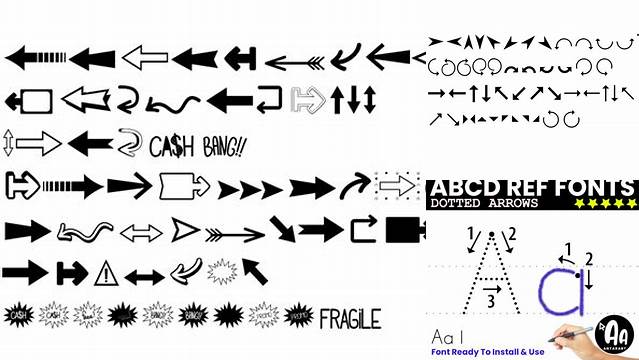
Free Tracing Font With Arrows: TTF Download Guide
Are you guys looking for the perfect tracing font with arrows? Look no further! In this comprehensive article, we will dive deep into the world of tracing fonts, particularly those with arrows, and guide you on how to download TTF files for free. Whether you are an educator, a designer, or simply someone who loves typography, this guide will equip you with everything you need to know about tracing fonts with arrows.
Why Use Tracing Fonts with Arrows?
Tracing fonts with arrows are an invaluable tool, especially when it comes to teaching handwriting and letter formation. These fonts provide a clear visual guide on how to write letters, numbers, and even symbols, making them ideal for educational materials. Let's explore the key benefits:
Educational Benefits
For educators and parents, tracing fonts with arrows are a game-changer. These fonts help children learn the correct strokes and sequence for forming letters and numbers. The arrows act as visual cues, guiding the learner's hand along the path of each stroke. This method is particularly effective for young learners who are just beginning to develop their handwriting skills. Using these fonts can transform worksheets and learning materials into engaging and effective tools. Think about how much easier it will be for kids to understand the flow of each letter when they have a visual guide right there on the page! Tracing fonts with arrows not only improve handwriting but also boost confidence in young learners as they master each character. The structured approach that these fonts offer reduces frustration and makes learning a fun and rewarding experience. Plus, the consistency in letter formation that comes with using these fonts helps in developing a neat and legible handwriting style from an early age.
Design Applications
Beyond education, tracing fonts with arrows also find applications in design. Designers can use these fonts to create unique and eye-catching graphics. Imagine using a tracing font with arrows to create a logo that conveys direction or movement, or designing an infographic that clearly illustrates a process. The possibilities are endless! These fonts add a creative twist to your projects, making them stand out from the crowd. They’re not just for kids; professional designers can incorporate them into branding materials, website designs, and even marketing campaigns. By incorporating these fonts, designers can create a sense of dynamism and guidance, drawing the viewer's eye and making complex information more accessible. This makes tracing fonts with arrows a versatile addition to any designer’s toolkit, offering a unique blend of functionality and aesthetic appeal.
Accessibility
Another significant advantage of tracing fonts with arrows is their accessibility. These fonts can be incredibly beneficial for individuals with learning disabilities or those who are struggling with handwriting. The visual cues provided by the arrows make it easier to understand the formation of each character, reducing the cognitive load and making the learning process more manageable. Accessibility is key in education, and these fonts provide a valuable resource for inclusive learning environments. They offer a structured and supportive approach to handwriting that can help learners of all abilities succeed. By breaking down the writing process into clear, step-by-step instructions, tracing fonts with arrows ensure that everyone has the opportunity to develop legible and confident handwriting skills. This not only improves academic performance but also enhances self-esteem and overall communication abilities.
1001 Free Fonts
As the name suggests, 1001 Free Fonts offers a vast library of fonts, many of which are available for free download. You can find several tracing fonts with arrows in their collection. The site is well-organized, making it easy to navigate and find the specific font you need. However, always double-check the license agreement to ensure it fits your intended use. 1001 Free Fonts is a reliable resource that has been around for many years, building a reputation for providing quality fonts to its users. The site’s extensive catalog is regularly updated, so you’ll always find fresh and interesting options. With its straightforward layout and helpful search filters, 1001 Free Fonts is an excellent place to start your search for the ideal tracing font with arrows. Remember to bookmark this site for future font needs, as it’s a valuable resource for designers, educators, and anyone else who loves typography.
Creative Fabrica
Creative Fabrica offers a mix of free and premium fonts. They often have free font bundles available for download, which may include tracing fonts with arrows. While it's not exclusively a free font site, the freebies they offer are often high-quality and worth checking out. Creative Fabrica is known for its excellent customer support and a commitment to providing top-notch resources for creatives. The site’s subscription model offers unlimited access to a vast library of fonts, graphics, and other design assets, making it a cost-effective option for professionals. However, even if you’re not a subscriber, the free section is well worth exploring, as you can often find unique and valuable fonts that you won’t find anywhere else. Keep an eye on their promotional offers, as they frequently run deals that make their premium resources even more accessible. Creative Fabrica is a great resource for both free and premium design assets, making it a valuable addition to your list of font sources.
Tracing fonts with arrows are a fantastic resource for educators, designers, and anyone looking to improve handwriting or create unique designs. By following the tips and resources outlined in this article, you can easily find and download free TTF fonts to enhance your projects. So go ahead, give these fonts a try, and watch your handwriting skills soar! Happy tracing, guys!